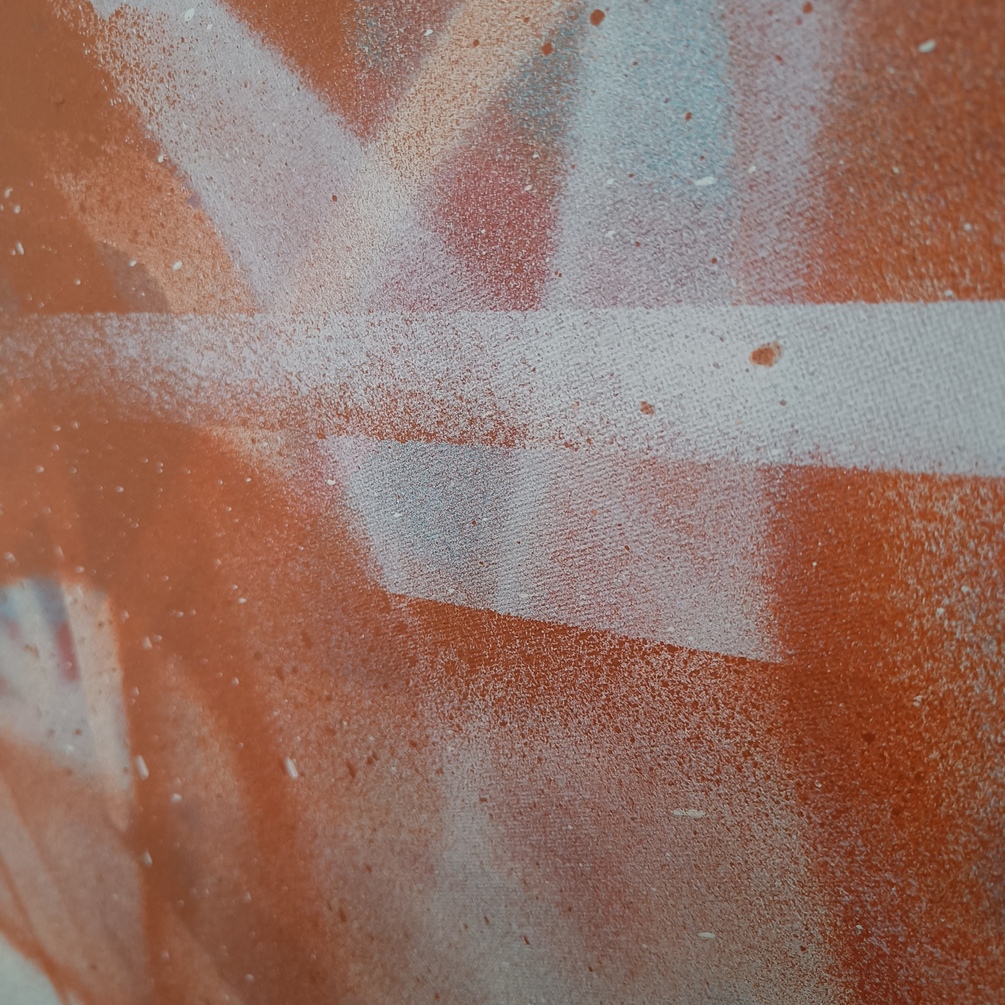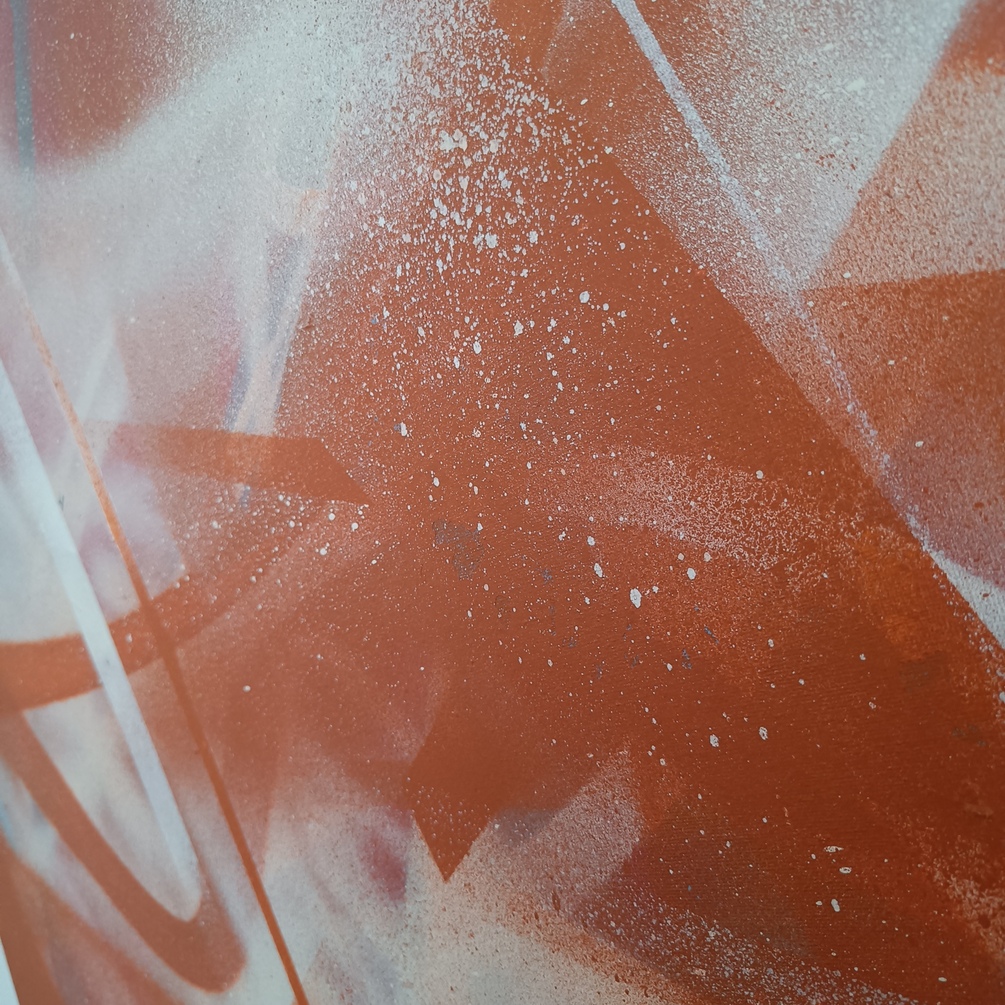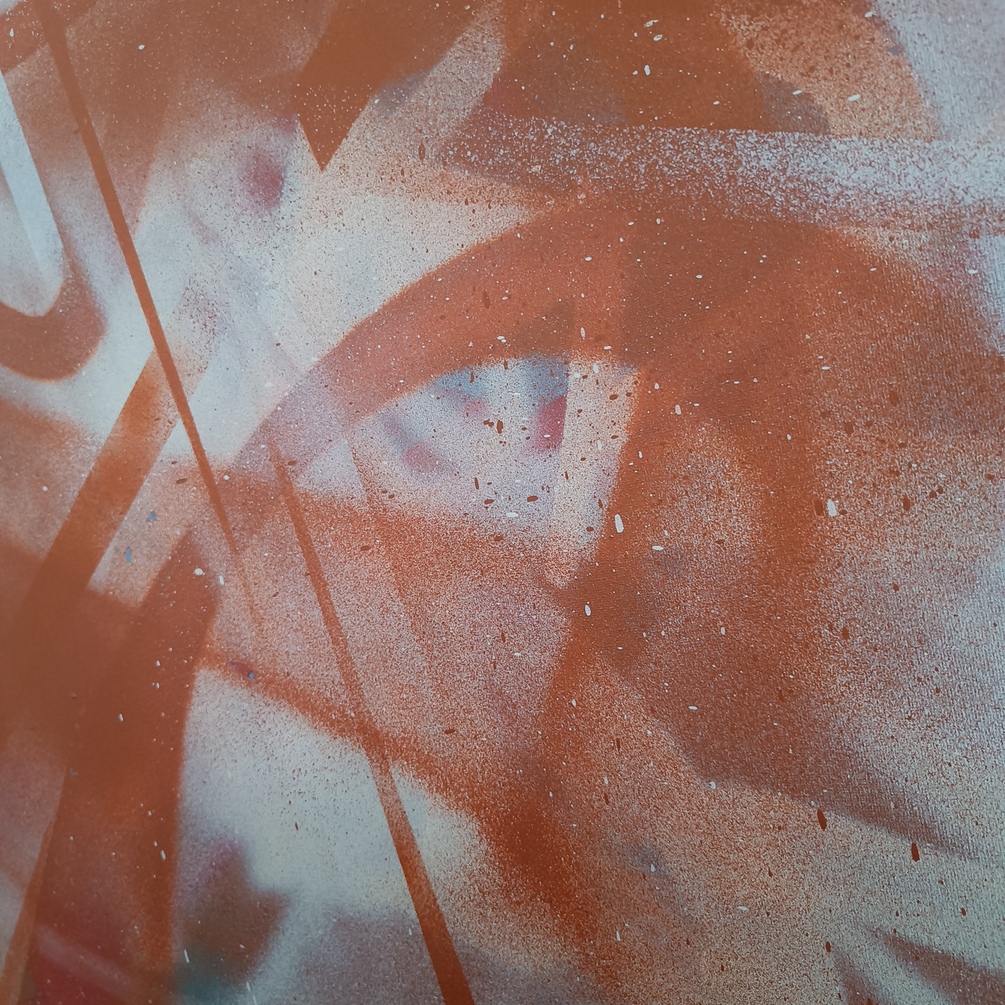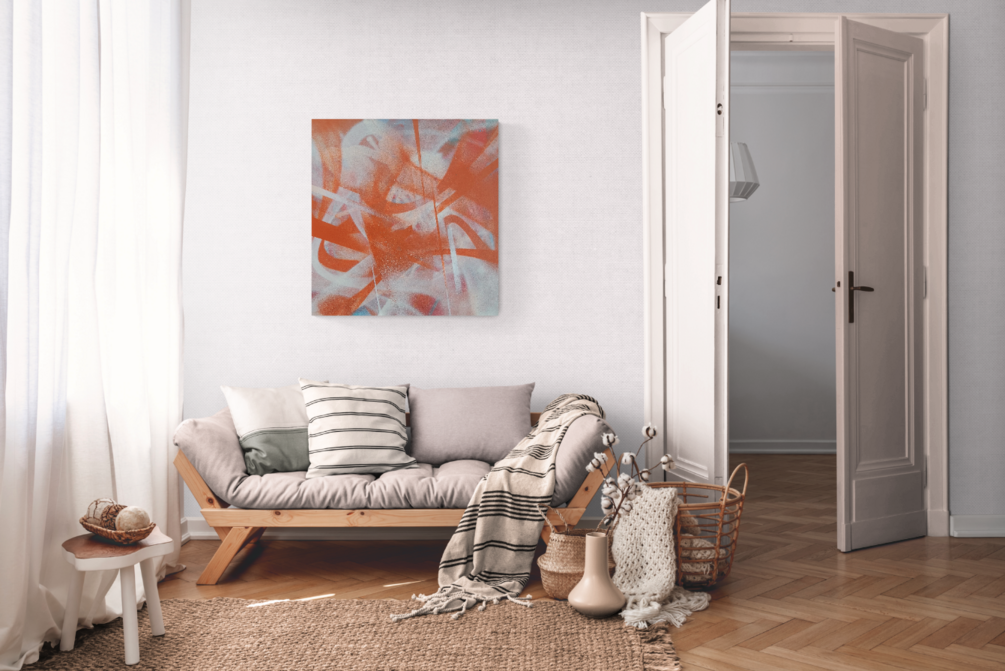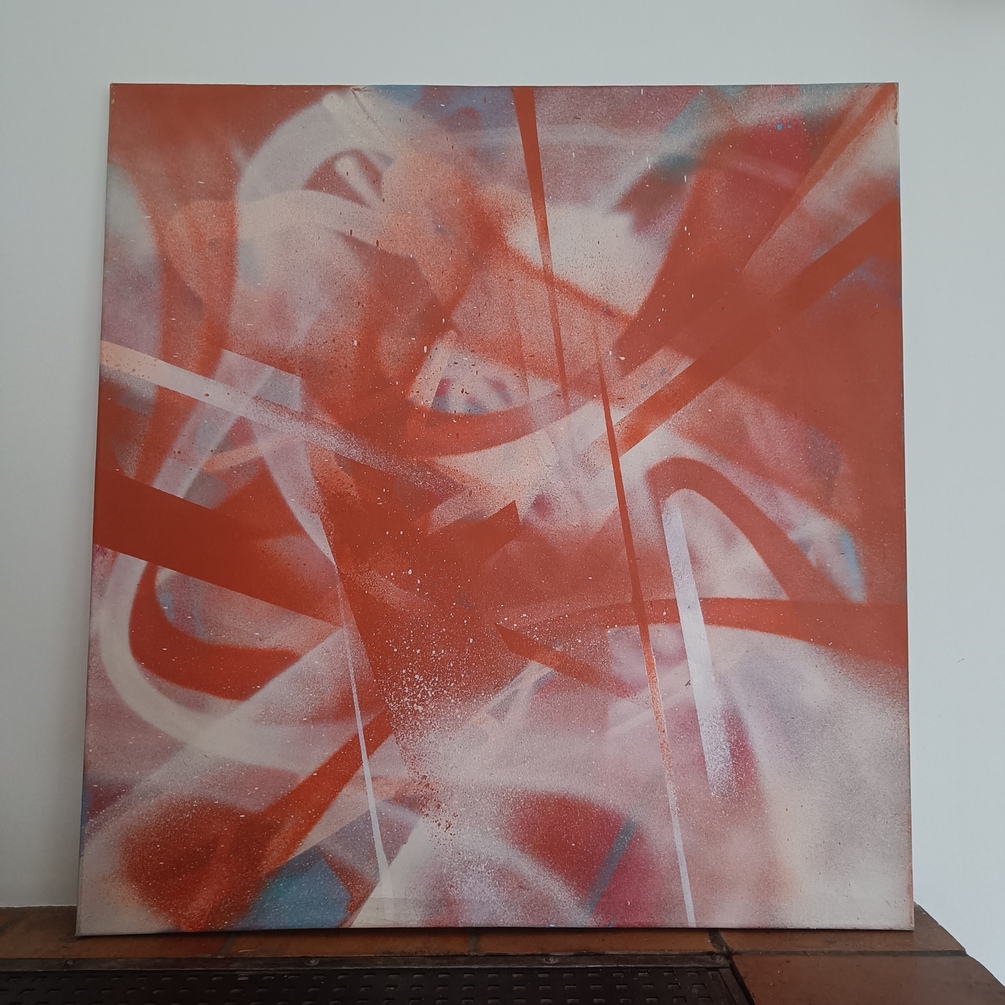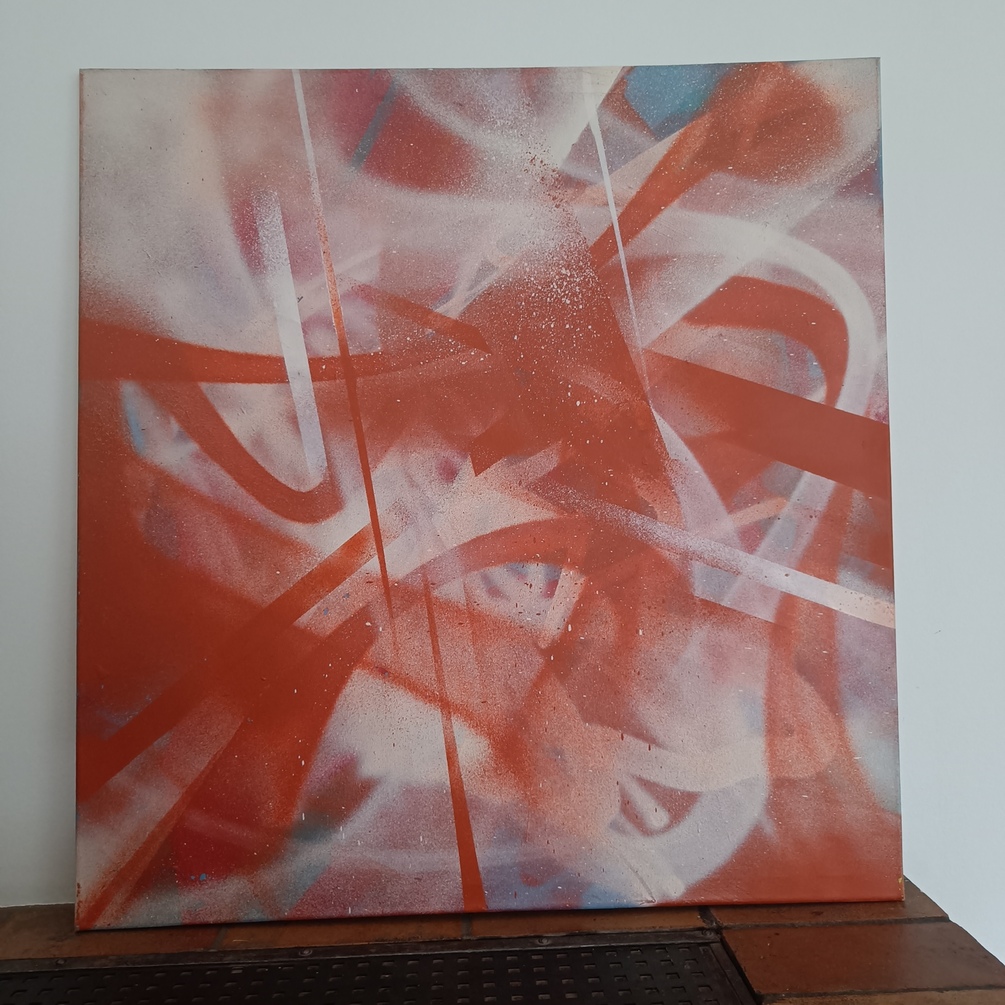
Emotional acrobatics - 80x80cm
Emotional acrobatics
Sideways, looking always to the Sun, sitting with the back to it
The work has a nature of an ambigram - and can be interpreted and turned upside down or sideways.
This work is the first in a series of changing my method of scaling up the method - maybe the link between canvas work and walls stronger and more evident.
Based upon my latest solo wall spanning 13 meters x 2.3 meters, I explored the application of the same workflow and unconstrained approach to organic and straight lines
Getting a few colors down, and working into carving out the energy within. After some time, I transformed the energy and flipped the conversation.
- taking the canvas from the wall and connecting the street level to a more cosey and hyggelig atmosphere in one´s home.